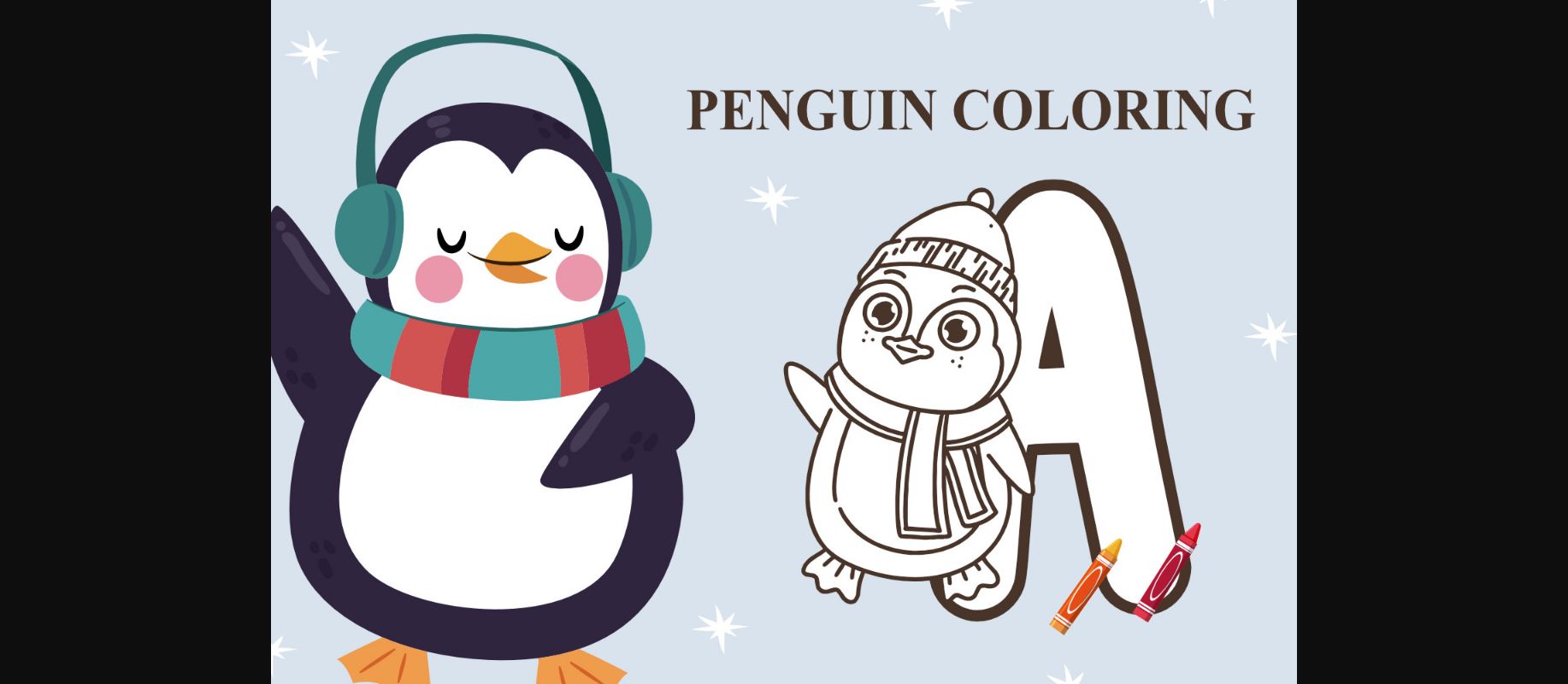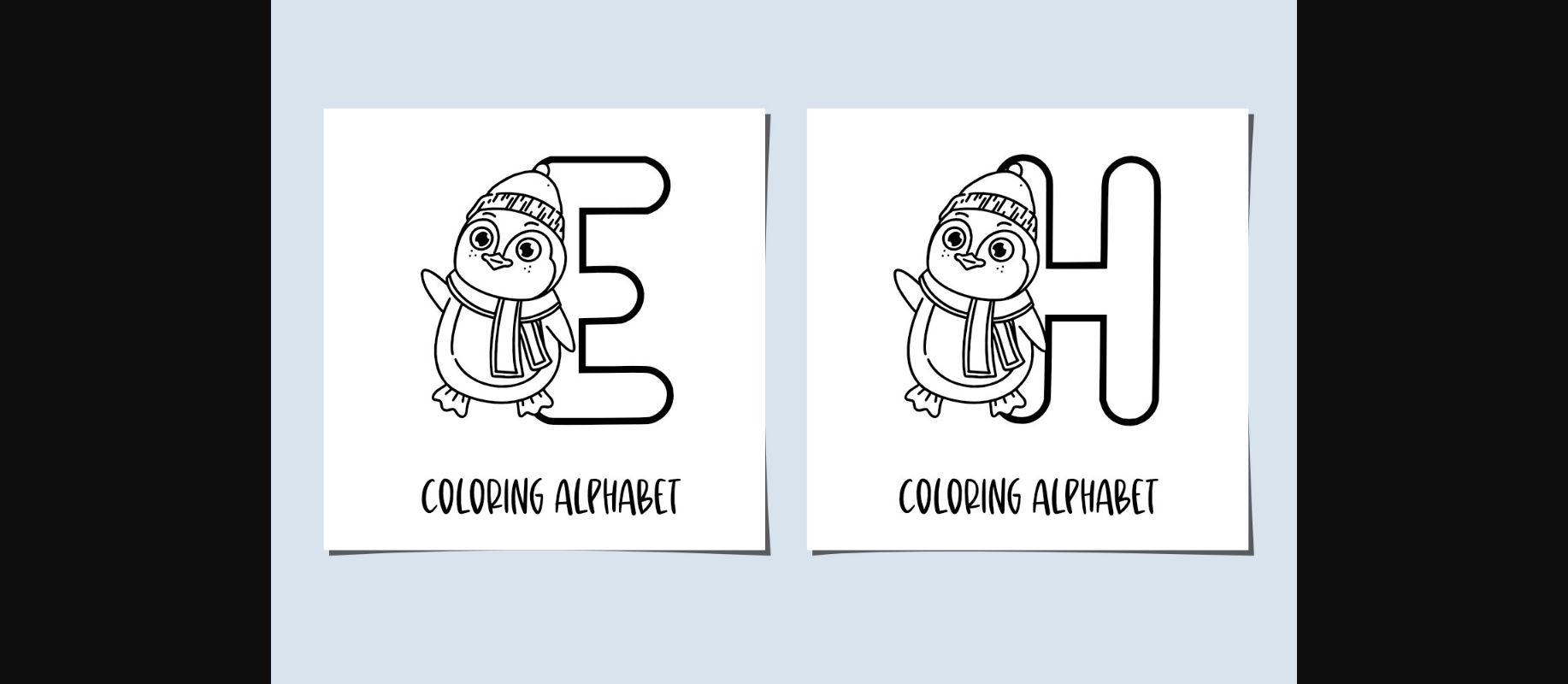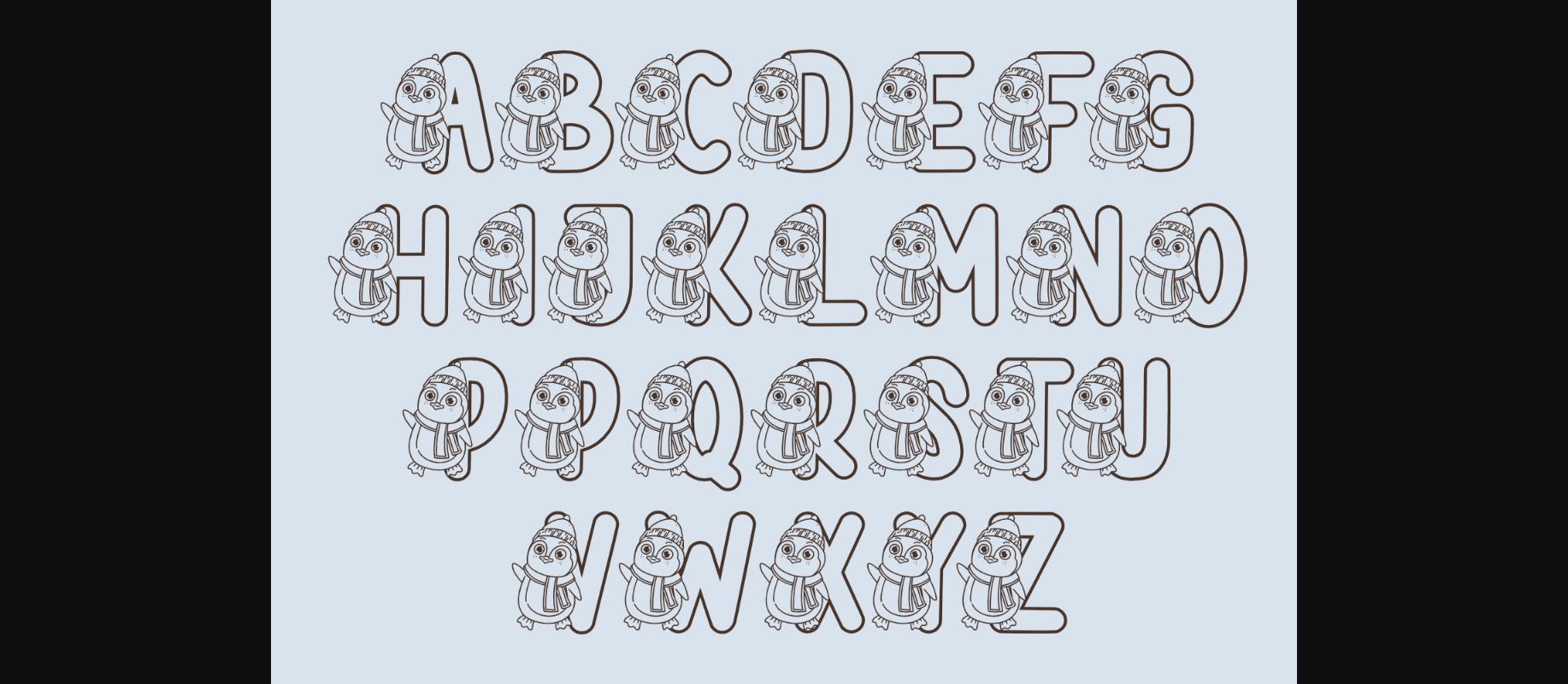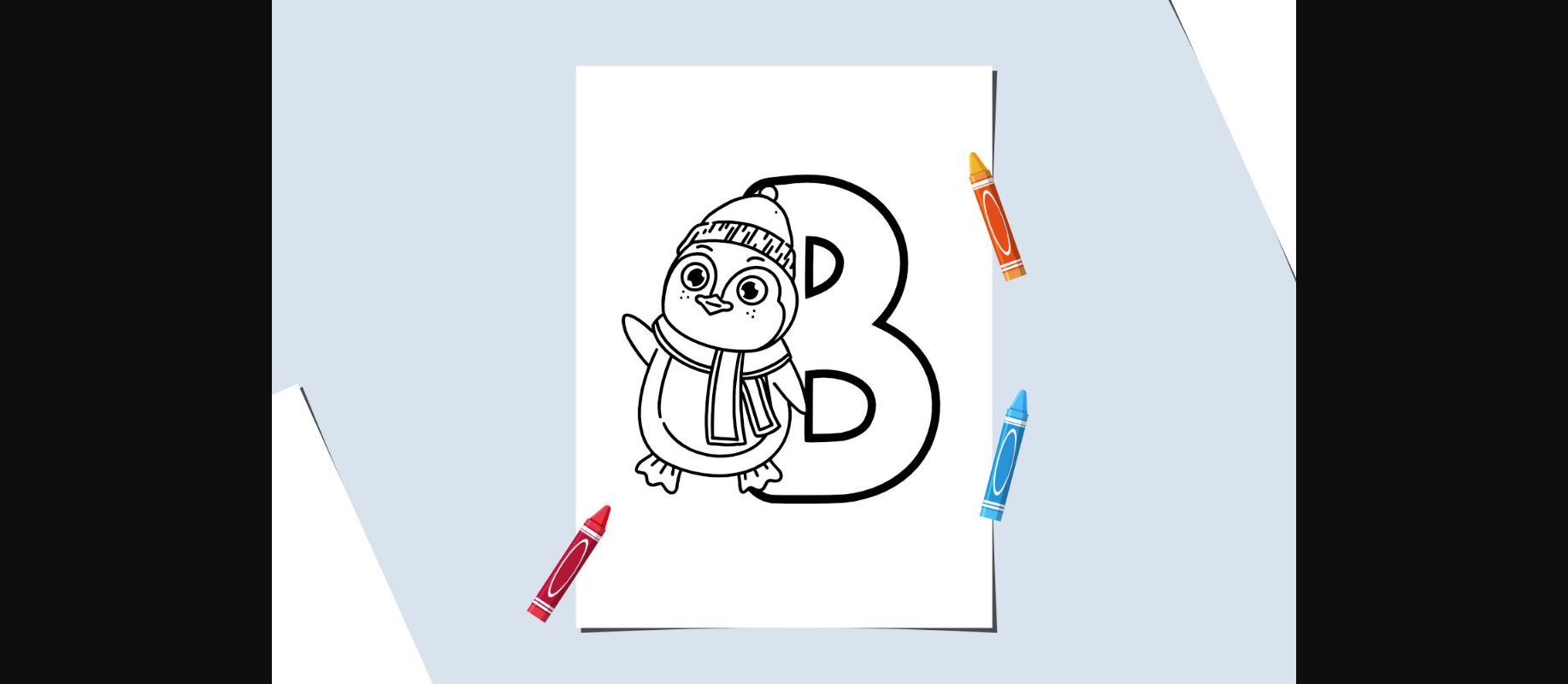
Penguin Coloring Font
About Penguin Coloring Font
Penguin Coloring Font is a cute and fun decorative font. This font represents fun. Add this cute font to your designs, and watch how it comes to life!